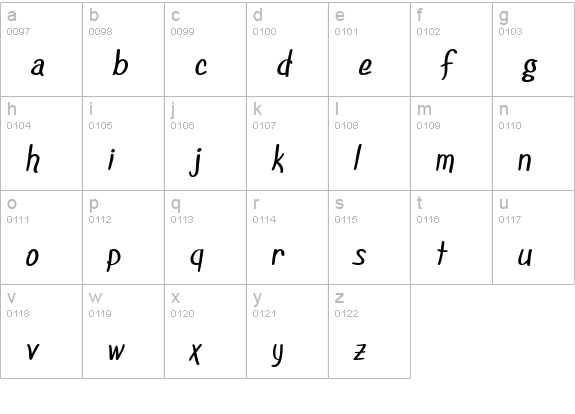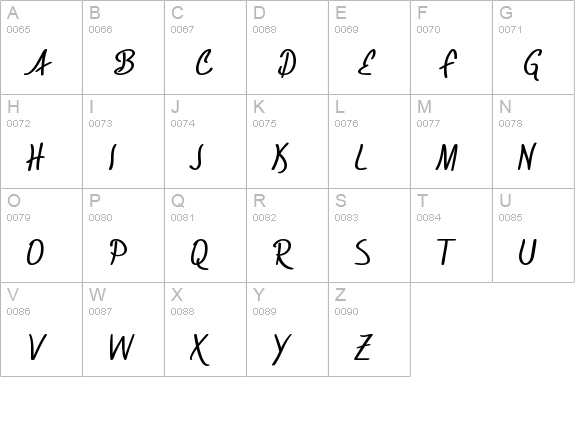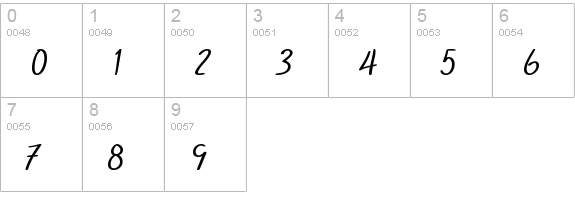
SF Foxboro Script Bold Font Details
SF Foxboro Script Bold is a strong, high-contrast variant in the SF typeface family \xE2\x80\x94 well suited to headlines, attention-grabbing titles, and strong calls-to-action.
SF Foxboro Script Bold is a stunning and versatile font that effortlessly blends elegance with a touch of playfulness. This bold and captivating typeface is perfect for adding a touch of sophistication to any design project. With its fluid and graceful strokes, SF Foxboro Script Bold is sure to make a lasting impression. This font is not only visually appealing but also incredibly functional, making it suitable for a wide range of applications. From branding and logo design to invitations and headlines, SF Foxboro Script Bold can elevate any design to new heights. What makes SF Foxboro Script Bold even more appealing is that it is freely available to download at FontsMarket.com. This means that you can easily access and incorporate this font into your projects without any additional cost. Whether you are a professional designer or a hobbyist, having access to high-quality fonts like SF Foxboro Script Bold can make a world of difference. So why wait? Download SF Foxboro Script Bold today and unlock a world of design possibilities. With its unique and eye-catching style, this font is sure to impress and captivate your audience. Remember, great design starts with great typography, and SF Foxboro Script Bold is here to help you create stunning visuals that leave a lasting impression.